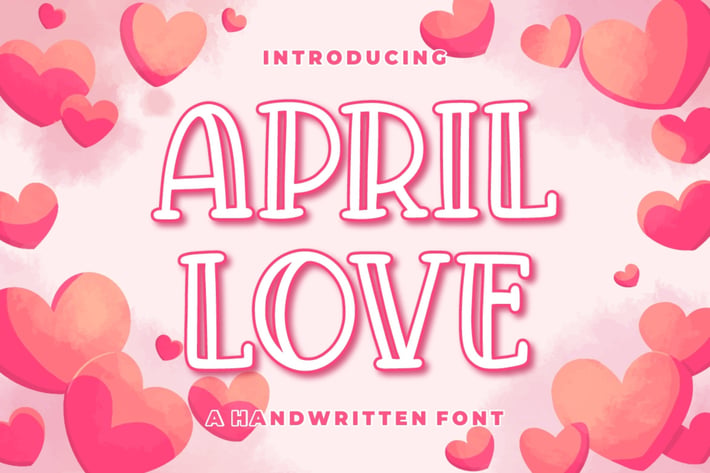
April Love - Craft Font
Introducing April Love - Handdrawn Font
April Love is the perfect font for all your fun designs. The main font file is equipped with ordinary characters. Everything is made with the funny brush. So you can be sure they will work well together! It is suitable for you to use in making t-shirt design, quote, label, packaging, logo type, or long writing. Because we have compiled kerning and matrices that are tailored to your needs.
April Love features: